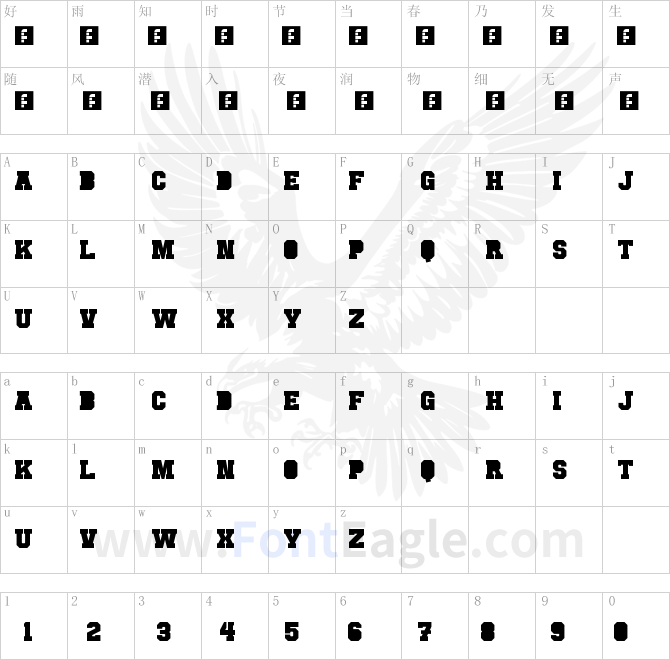
- Font name:Punchline Filled
“Punchline Filled” is based on “Punchline” by “Tobias Sommer” (http://fontstruct.fontshop.com/fontstructors/shasta) - Font Ext:.ttf